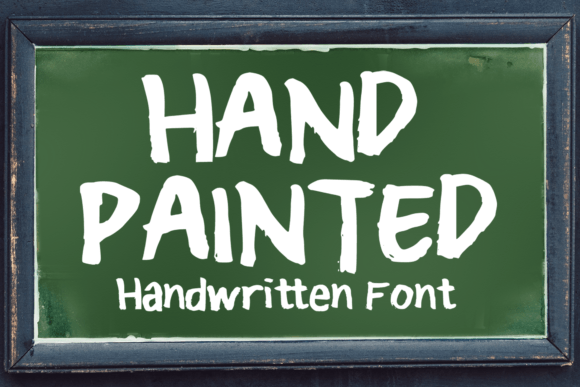
Adorn your designs with the charm of authenticity with Hand Painted Font, a captivating script family that captures the essence of true brushwork. Its strokes, reminiscent of an artist's fluid hand, evoke a sense of intimacy and personality, adding a touch of artistry to your creations.
Crafted by MVMET, a renowned font designer, Hand Painted is not just another font; it's an invitation to embrace the beauty of imperfections, to revel in the uniqueness of each handwritten letter. Its organic flow and subtle variations mimic the natural movements of a paintbrush, creating designs that radiate authenticity and warmth.
Whether you're designing t-shirts, restaurant menus, greeting cards, stickers, posters, or children's books, Hand Painted becomes your perfect partner. Its versatility extends to digital realms too, making it an ideal choice for web design and social media graphics.
Immerse yourself in a world of creativity with Hand Painted. Let its casual touch add a dash of charm to your designs, capturing the hearts of your audience with its genuine and approachable aura. Embrace the allure of the handwritten, and elevate your designs to new heights of artistry.
Don't settle for ordinary; embrace the extraordinary with Hand Painted Font. Its captivating strokes and authentic charm will transform your designs into masterpieces that resonate with your audience. Indulge in the joy of creation and let your imagination run wild with this remarkable font family. Experience the magic of Hand Painted today and witness the transformation unfold before your eyes.